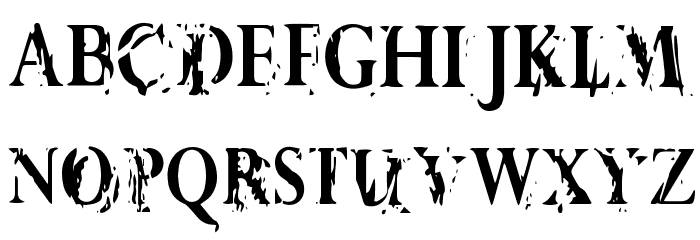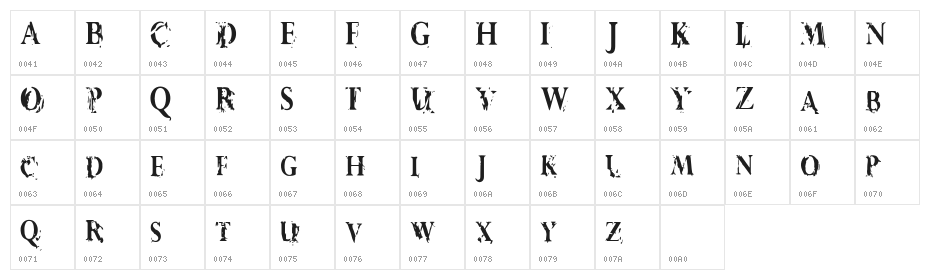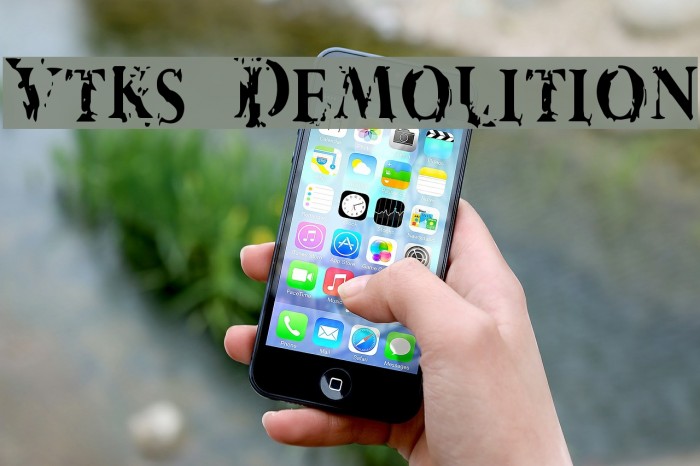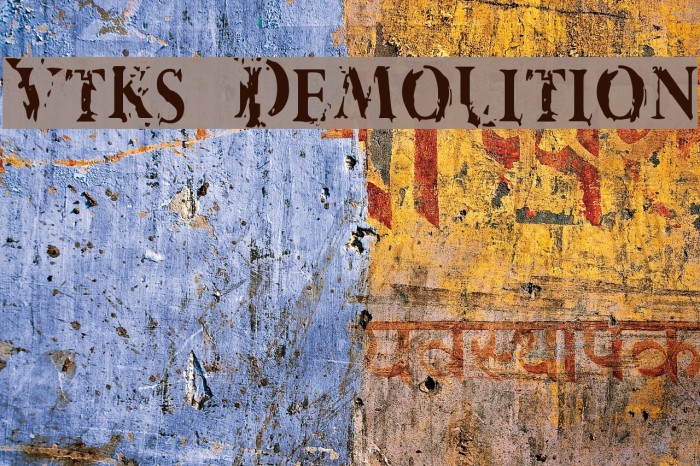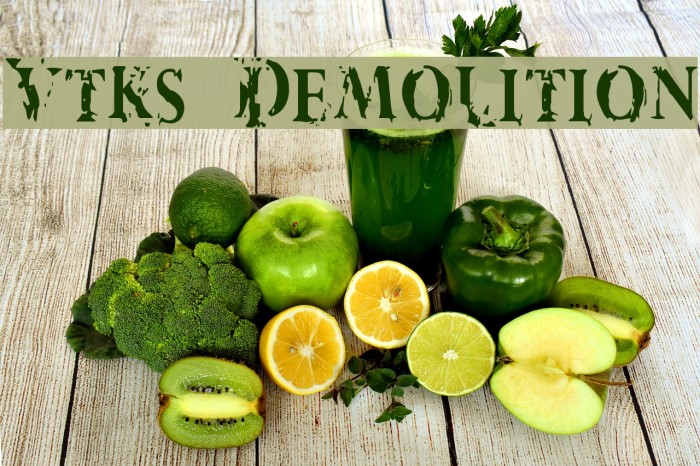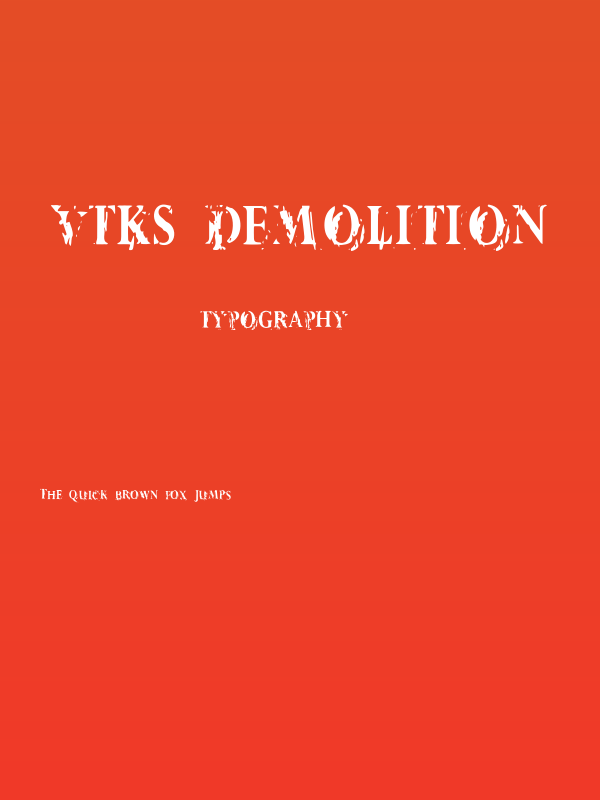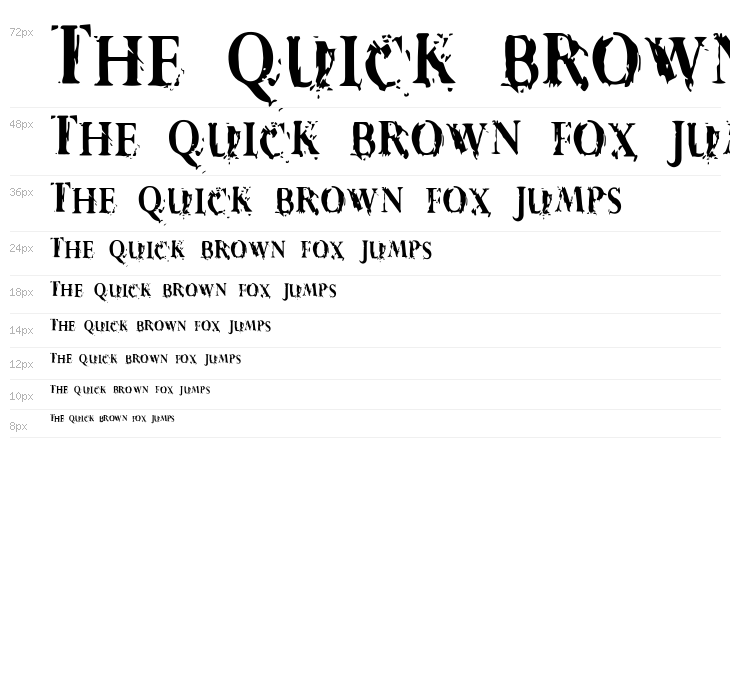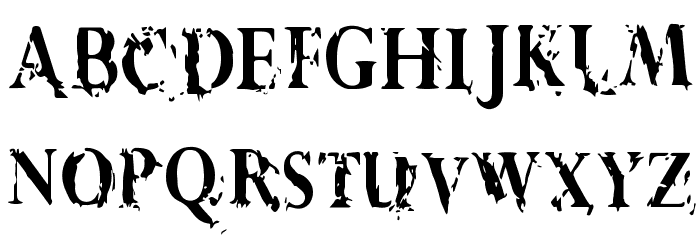
Vtks Demolition Font
Vtks Demolition Description
This font features a distressed and eroded appearance, giving it a rugged and worn-out look. The characters are bold and have a serif style, with parts of the letters appearing as if they have been chipped away or weathered over time. This creates a dynamic and edgy aesthetic, perfect for designs that require a gritty or industrial feel. The uppercase letters are prominent, and the overall design suggests a sense of decay or demolition, making it suitable for projects that aim to convey strength, resilience, or a post-apocalyptic theme.
| Proposed Projects | Ideal for posters, album covers, video game titles, or any project needing a gritty, industrial vibe. |